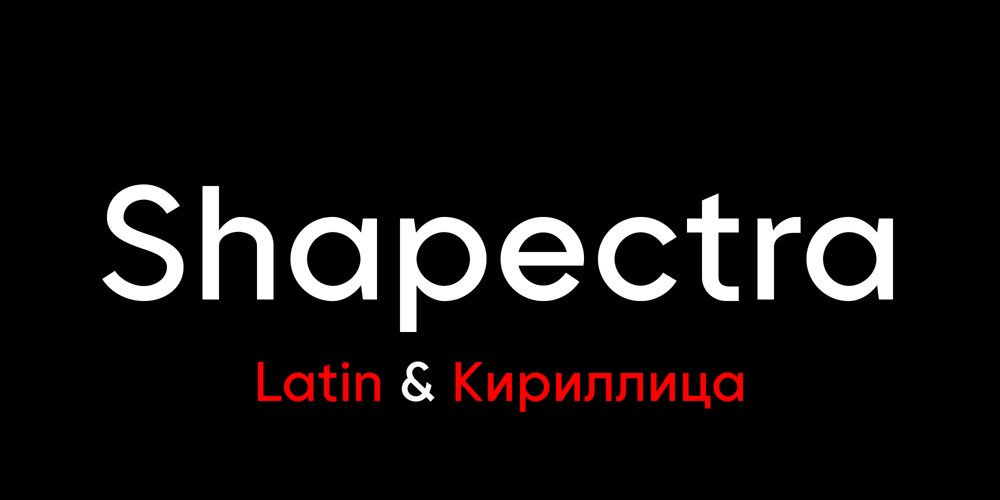
Shapectra Font Family was designed by Hsan Hajji and published by Hsan Fonts. Shapectra contains 11 styles and family package options. Shapectra is a font family. It comes in 11 weights, you can use it . Designed with powerful opentype features in mind. Each weight includes extended language support (+ Cyrillic), fractions, tabular figures, arrows, ligatures and more. Perfectly suited for graphic design and any display use. It could easily work for web, signage, corporate as well as for editorial design.